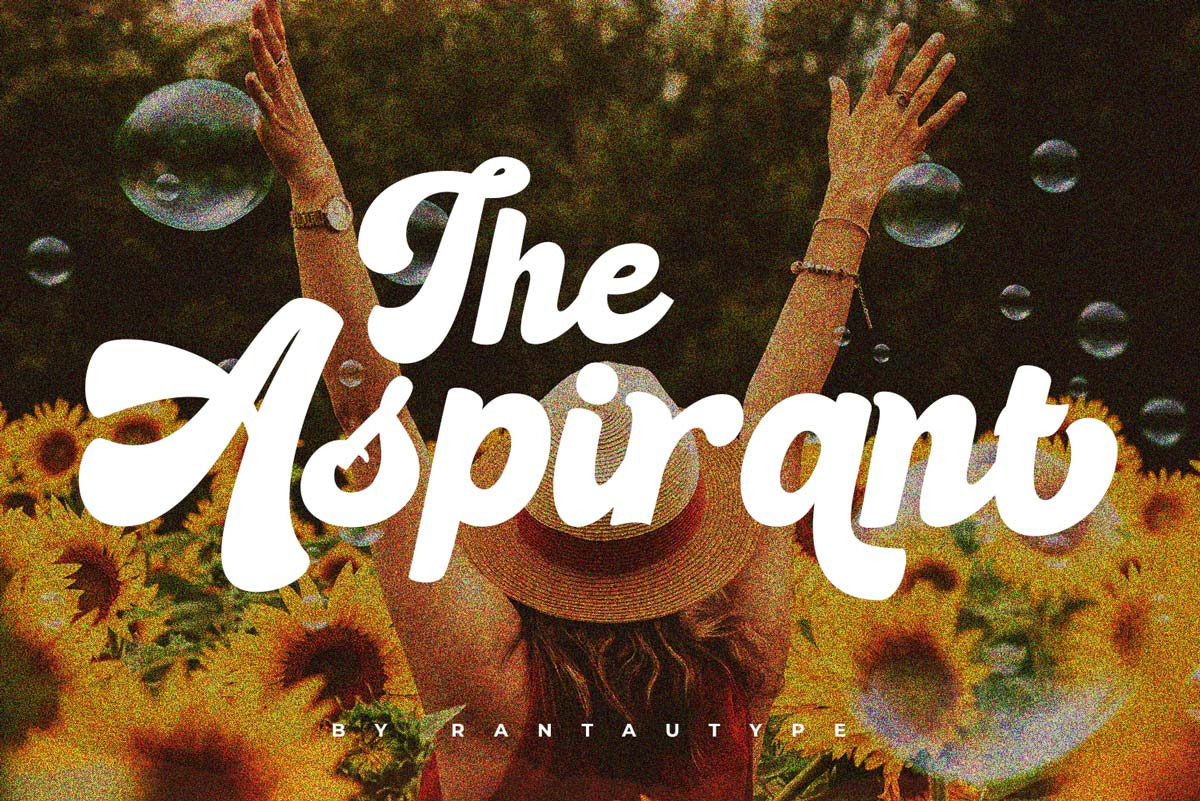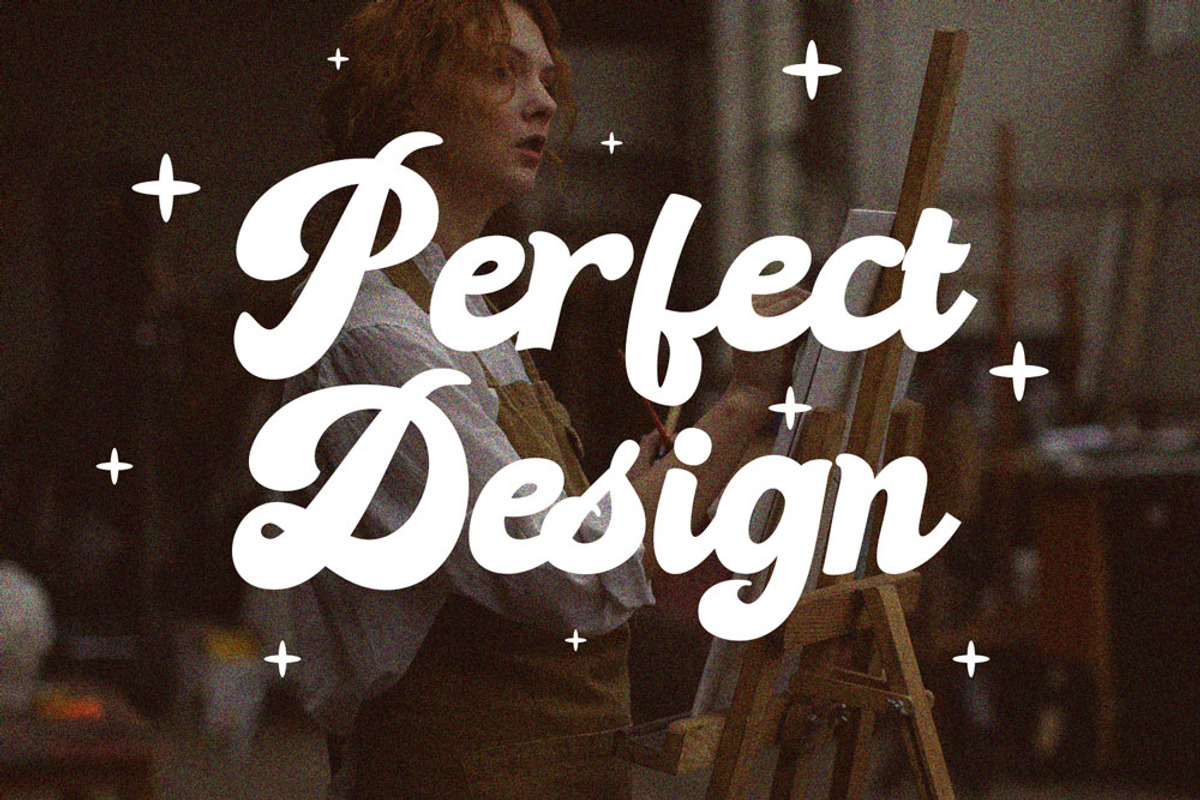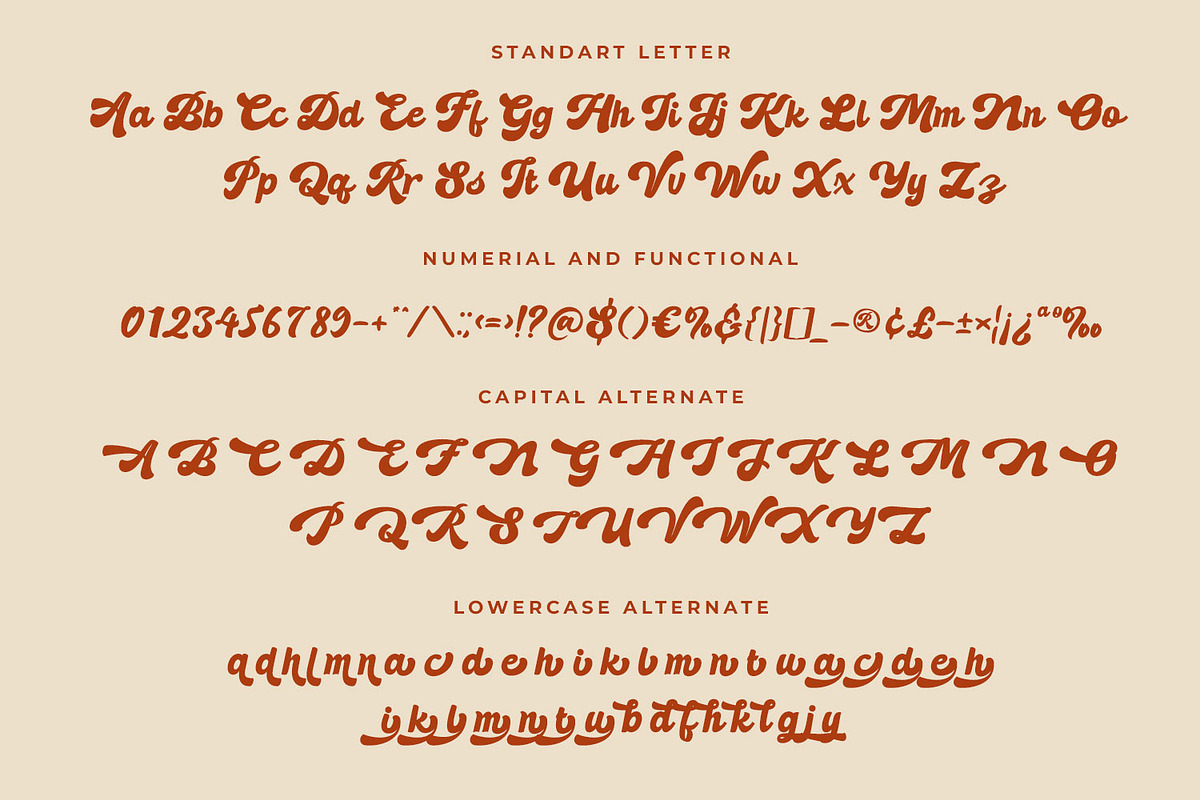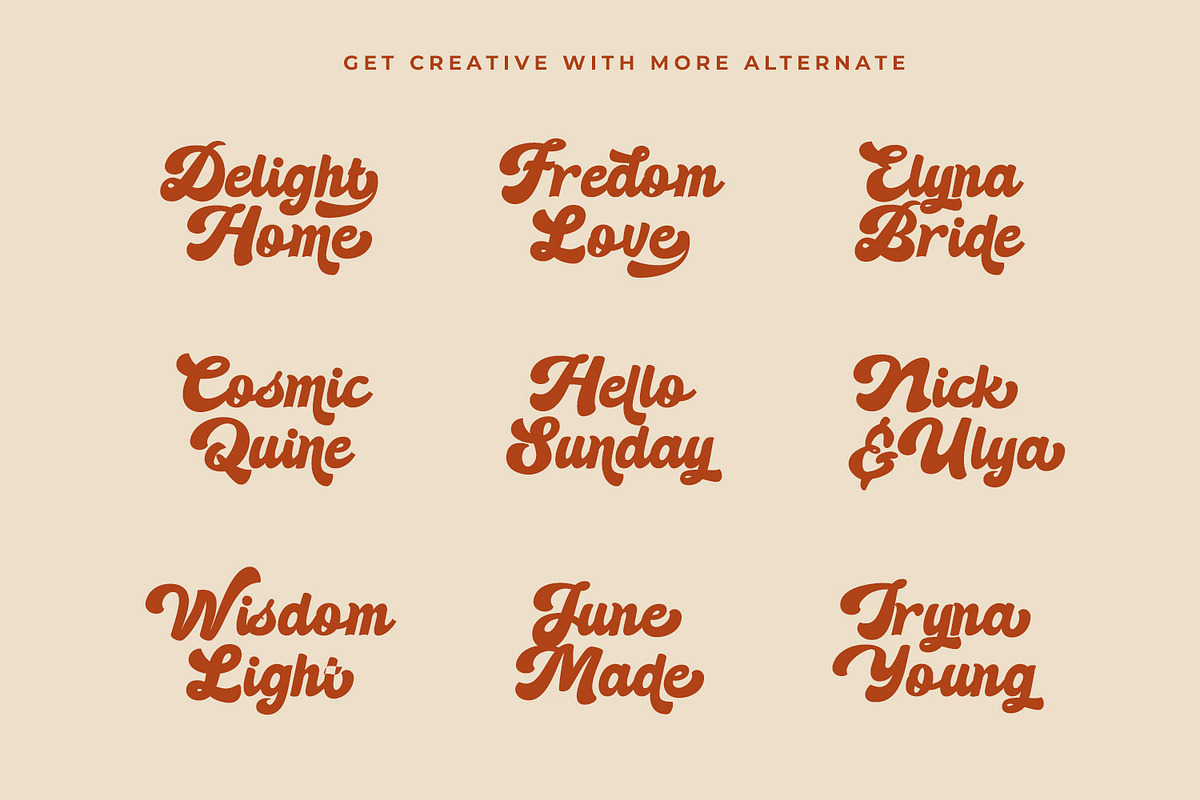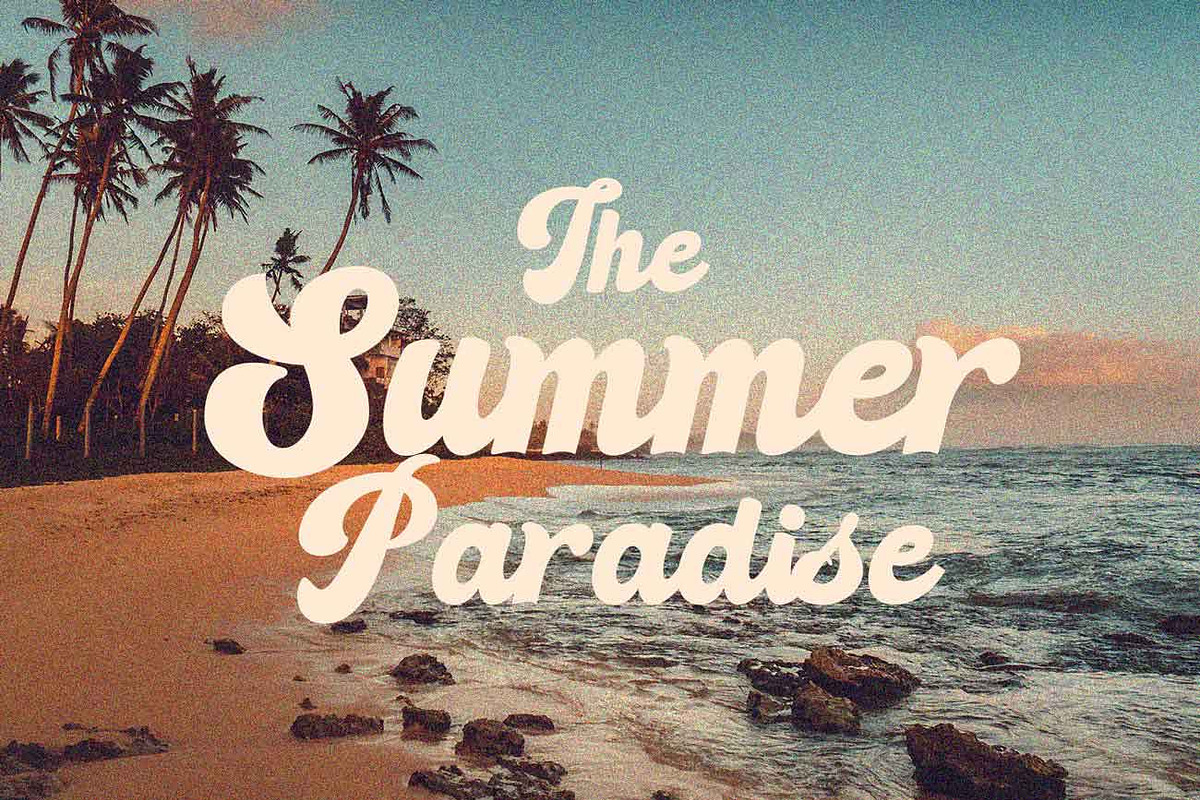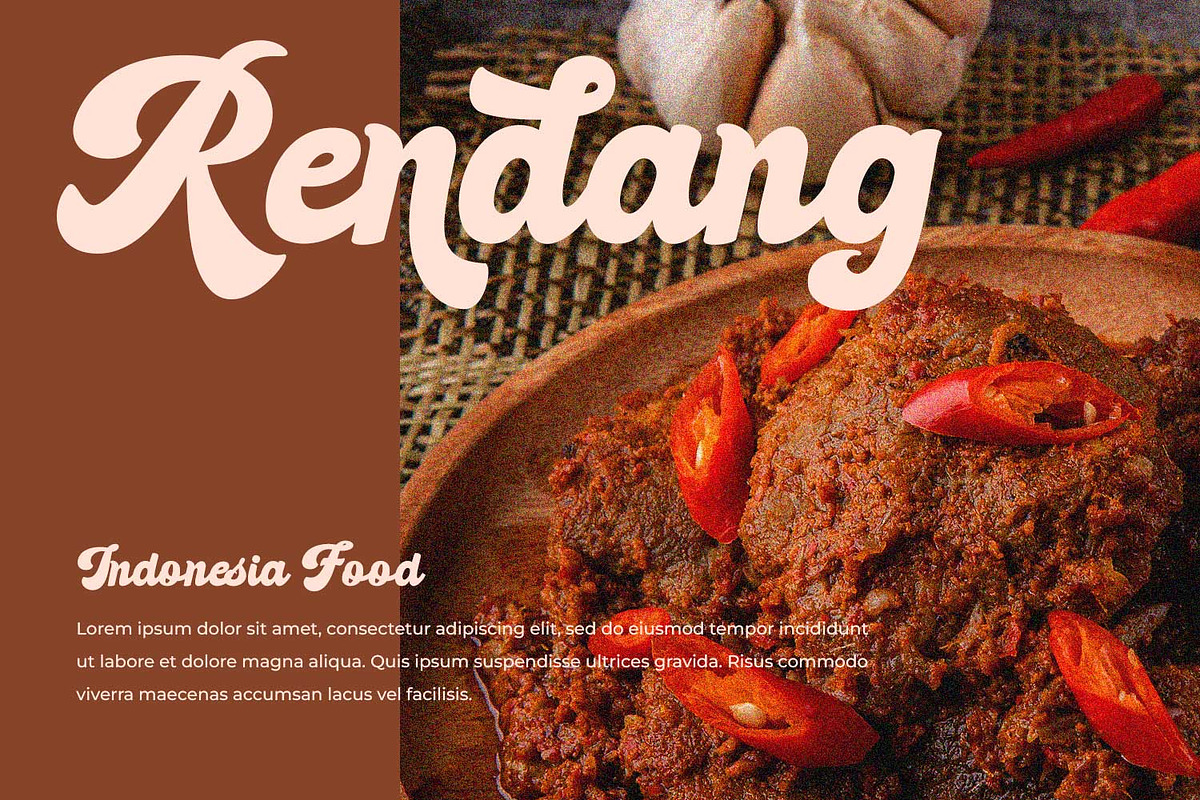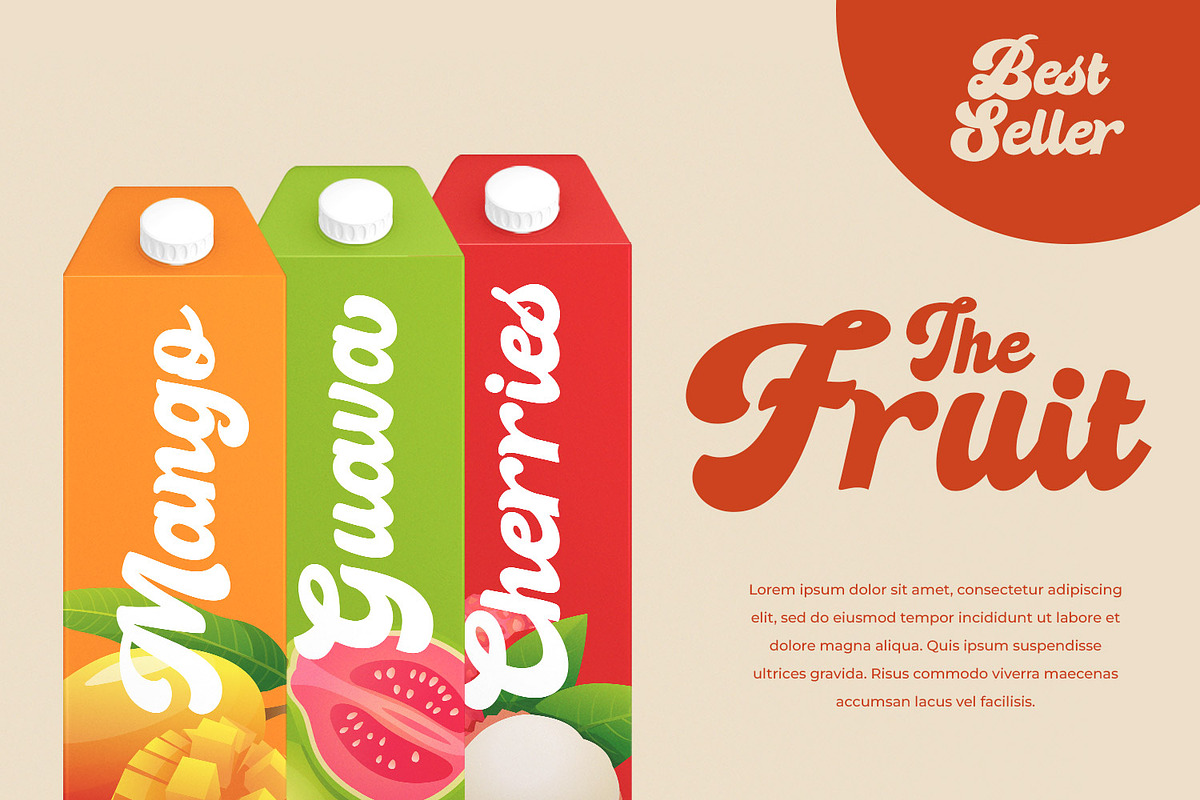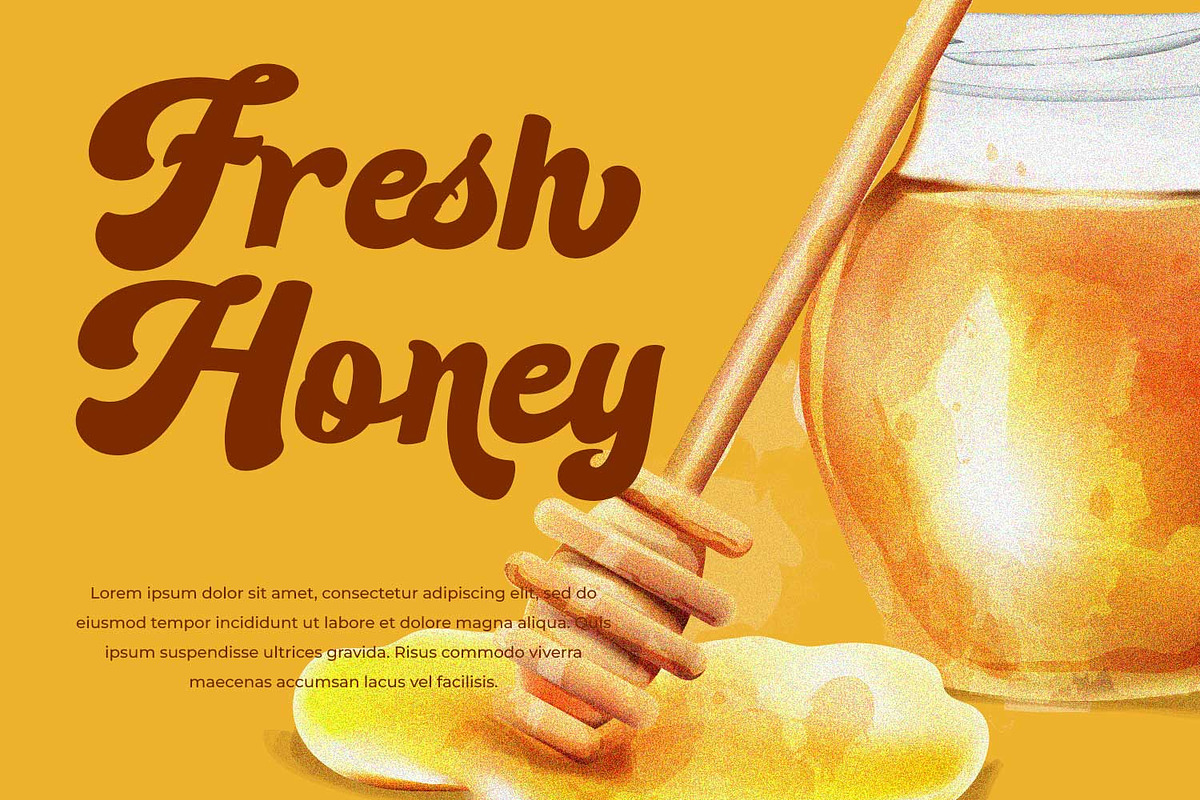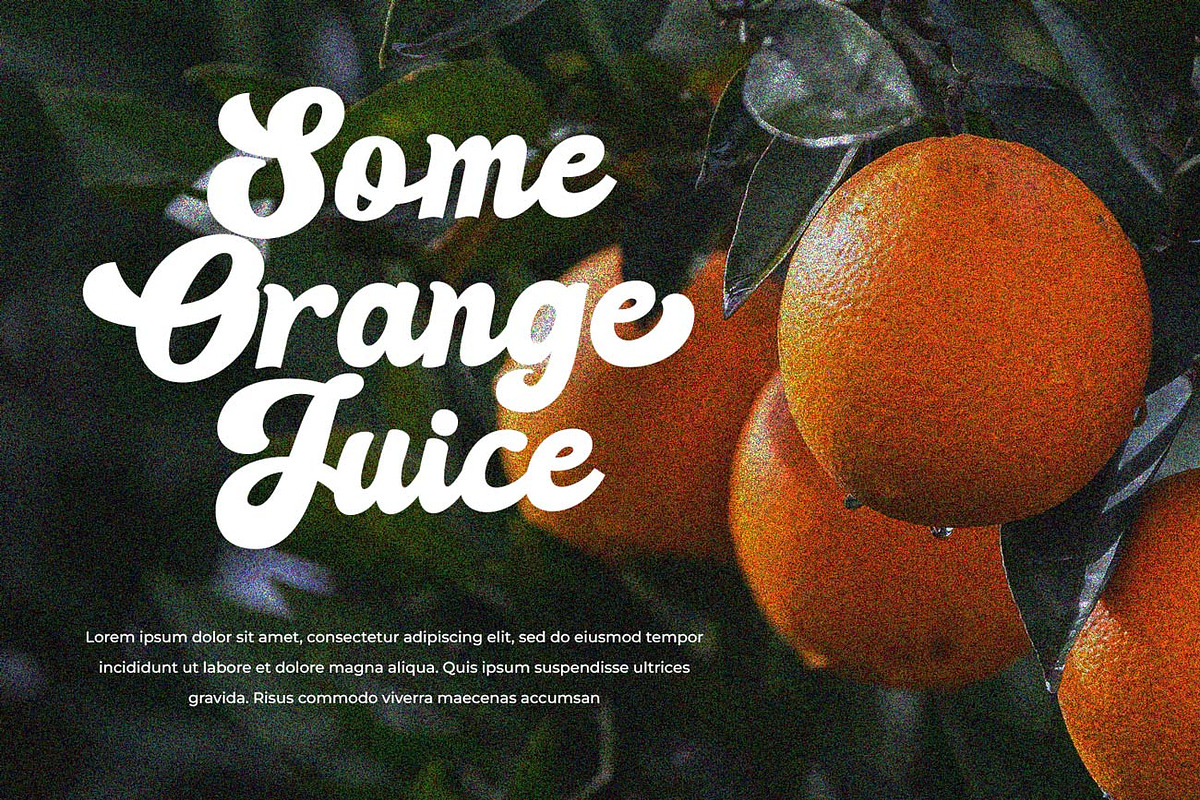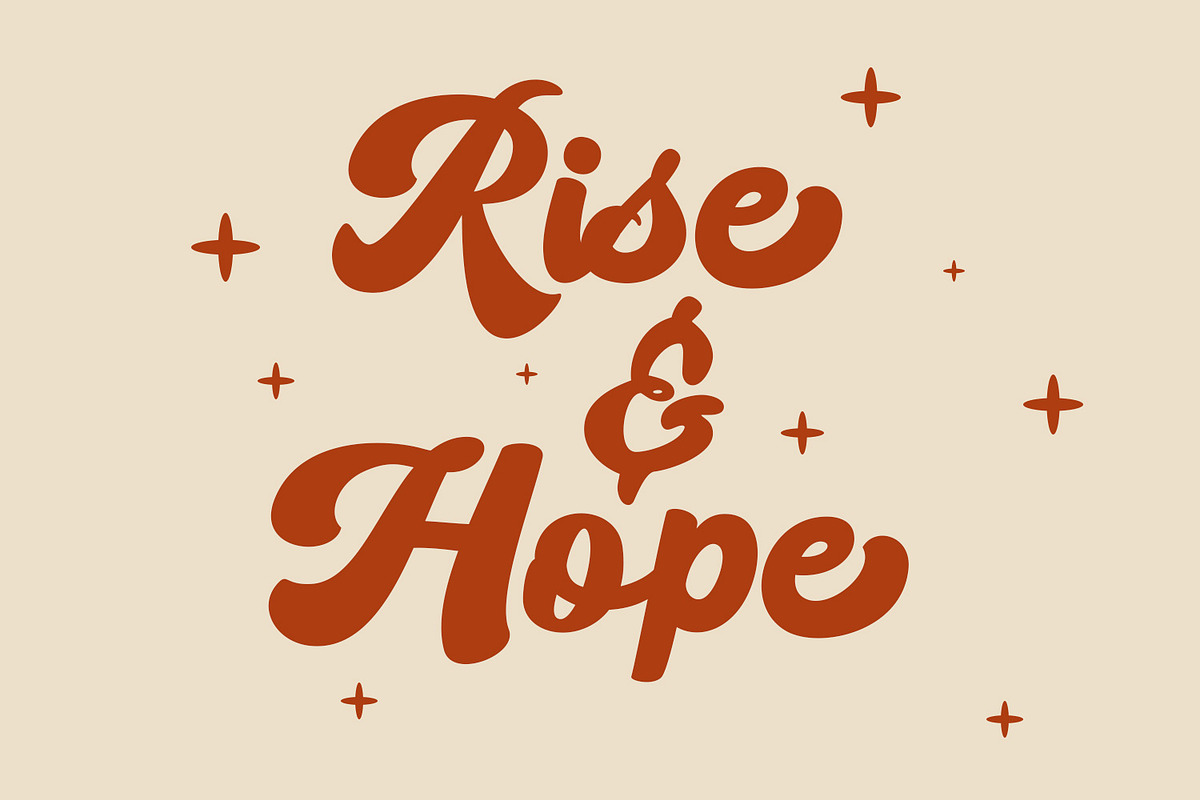
Aspirant Retro Script Font
Hi Ladies and Gentleman ! Proudly present retro script font called Aspirant by rantautype.
Aspirant fits perfectly into those nostalgic moodboards and vintage logos. It come with a unique lower and uppercase plus numbers and punctional. Aspirant also have more alternate and ligature so you can get creative with more optional.
Aspirant can use in choice for watermark on photography, quotes, album cover, magazine, business card and many other design project. Aspirant here to make your work to high level!!!
- Standar character A-Z and a-z
- Multilinggual support